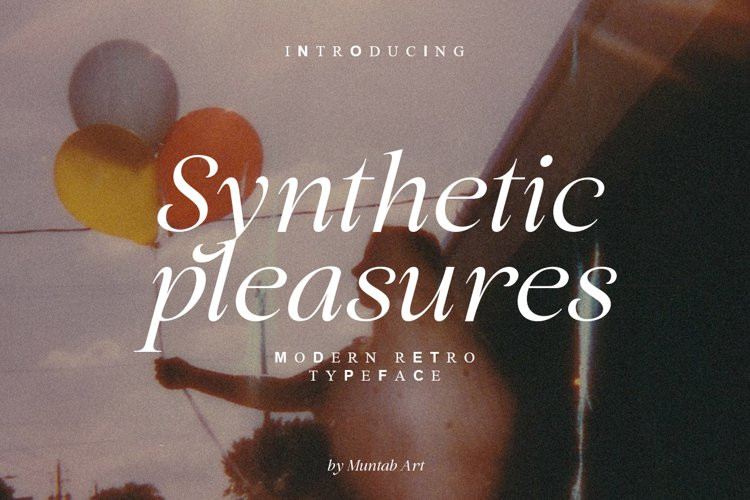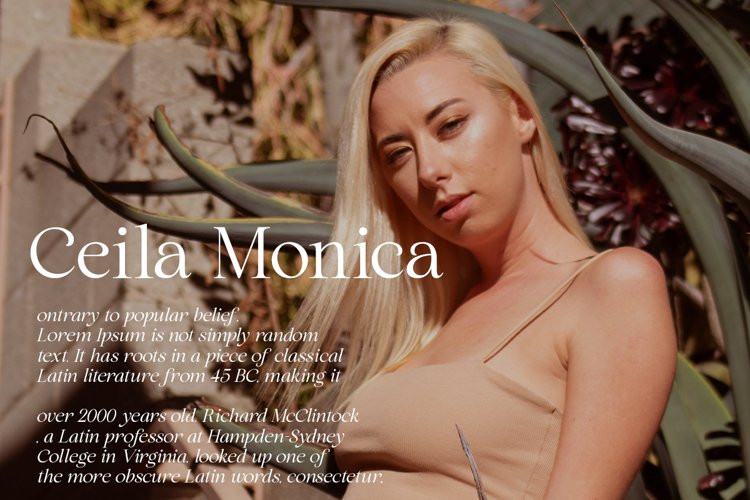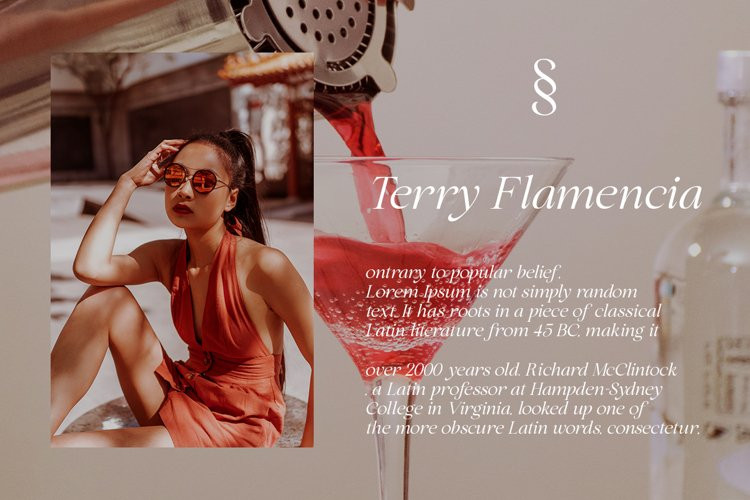
Synthetic Pleasures Font
Synthetic Pleasures FontSynthetic Pleasures fonts includes uppercase letters, lowercase letters, numerals, a large range of punctuation. Serif font with modern stylish style include alternate characters. Created for poster, web design, branding, illustrations, badges and some other works.